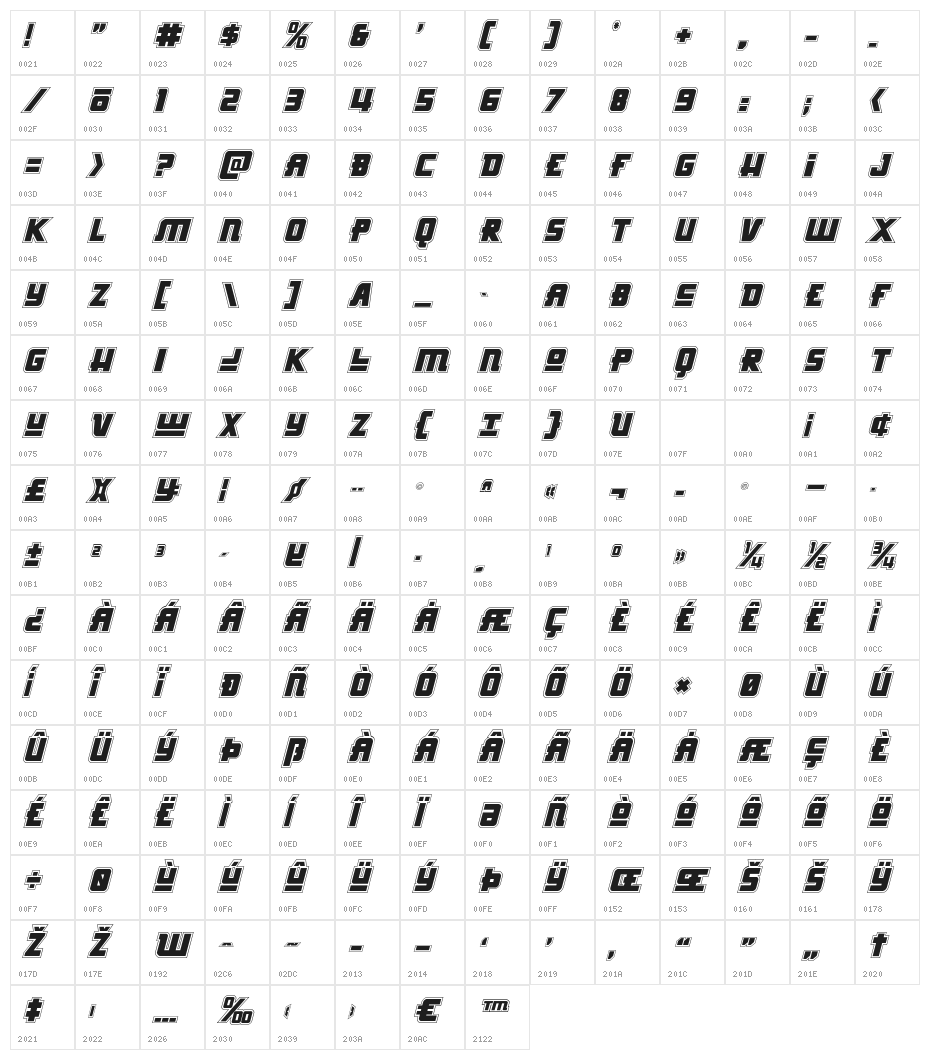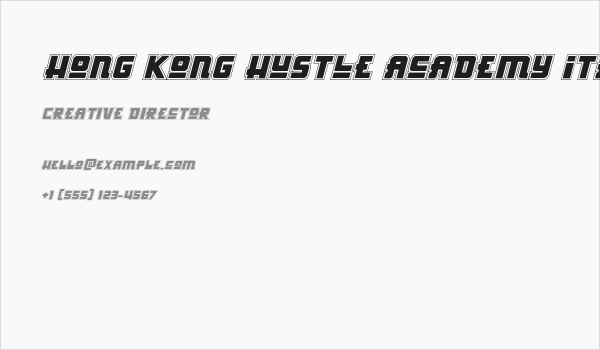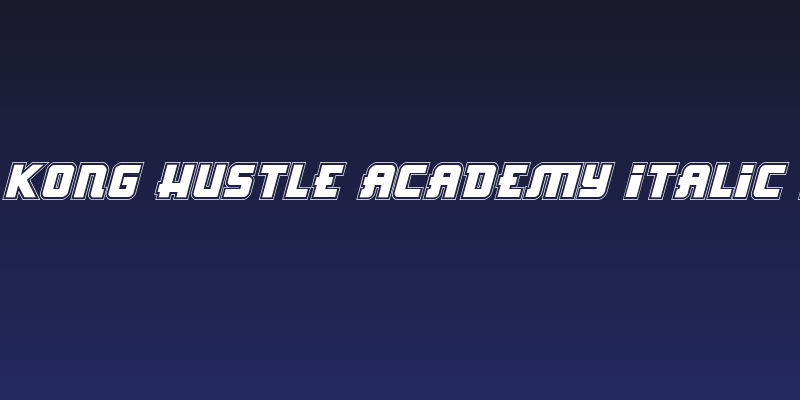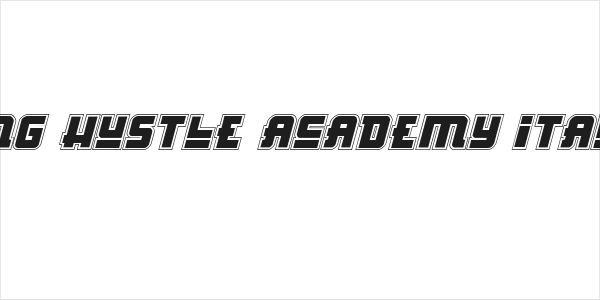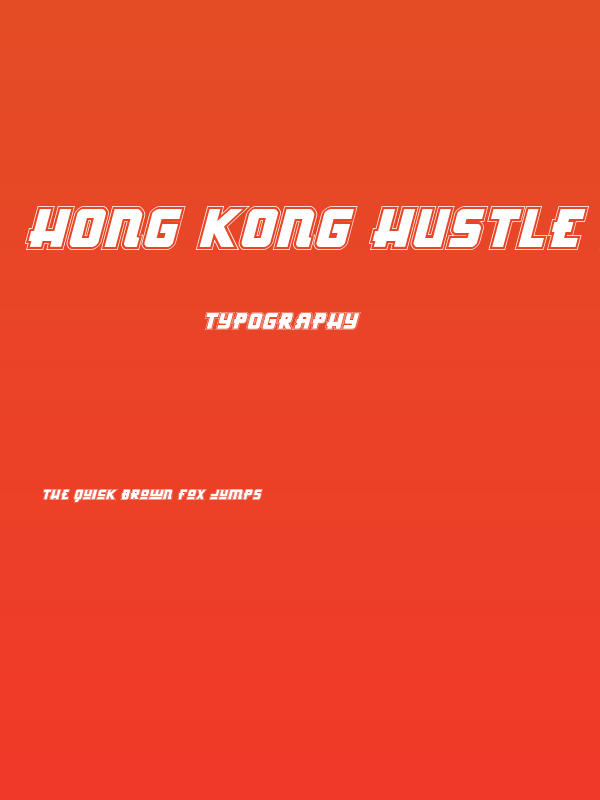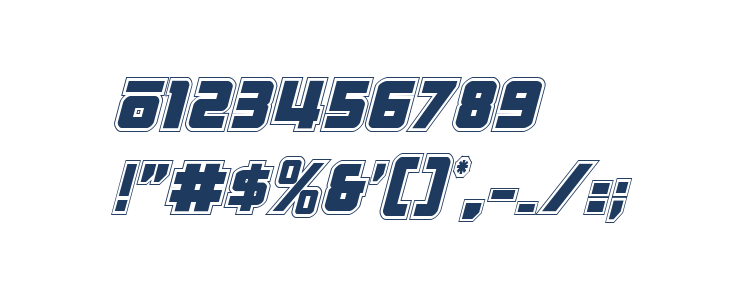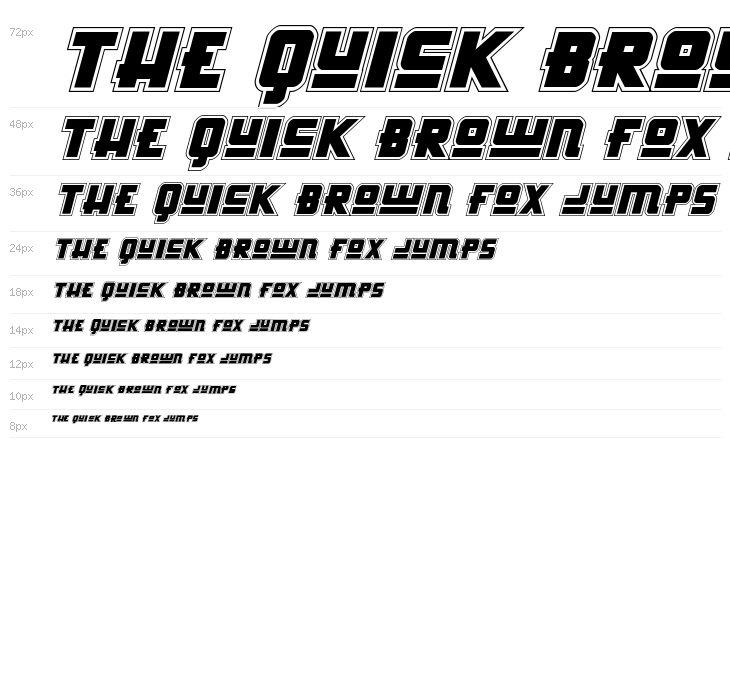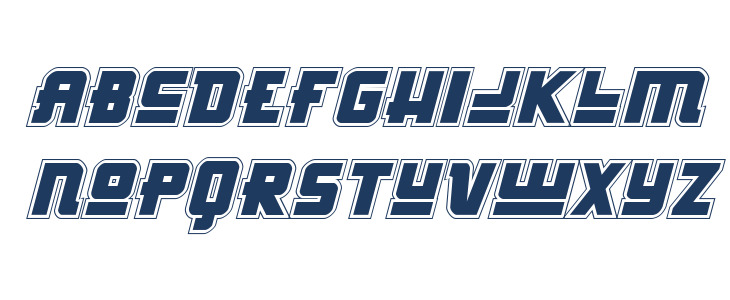
Hong Kong Hustle Academy Italic Italic Font
Hong Kong Hustle Academy Italic Italic Description
This font features a bold and dynamic style with a strong geometric influence. The characters are italicized, giving them a sense of movement and energy. Each letter is outlined, enhancing its boldness and making it stand out. The font has a futuristic and urban vibe, with sharp angles and a slightly condensed appearance. The numbers and special characters follow the same design principles, maintaining consistency throughout. This font is perfect for projects that require a modern and edgy look.
| Proposed Projects | Ideal for sports branding, video game titles, urban-themed posters, and dynamic advertising campaigns. |